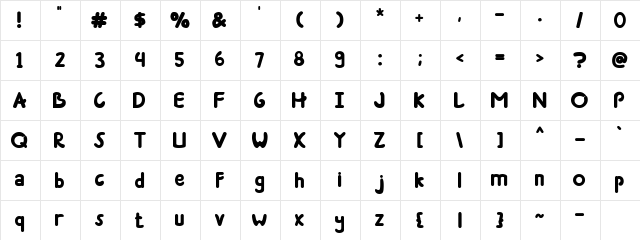
Learnings Regular
| Designer | TAN ZUHA NU'MAN |
Design Context for Learnings Typeface
Learnings takes a measured approach to typography — its balanced proportions and neutral character make it a reliable workhorse for both digital and print work.